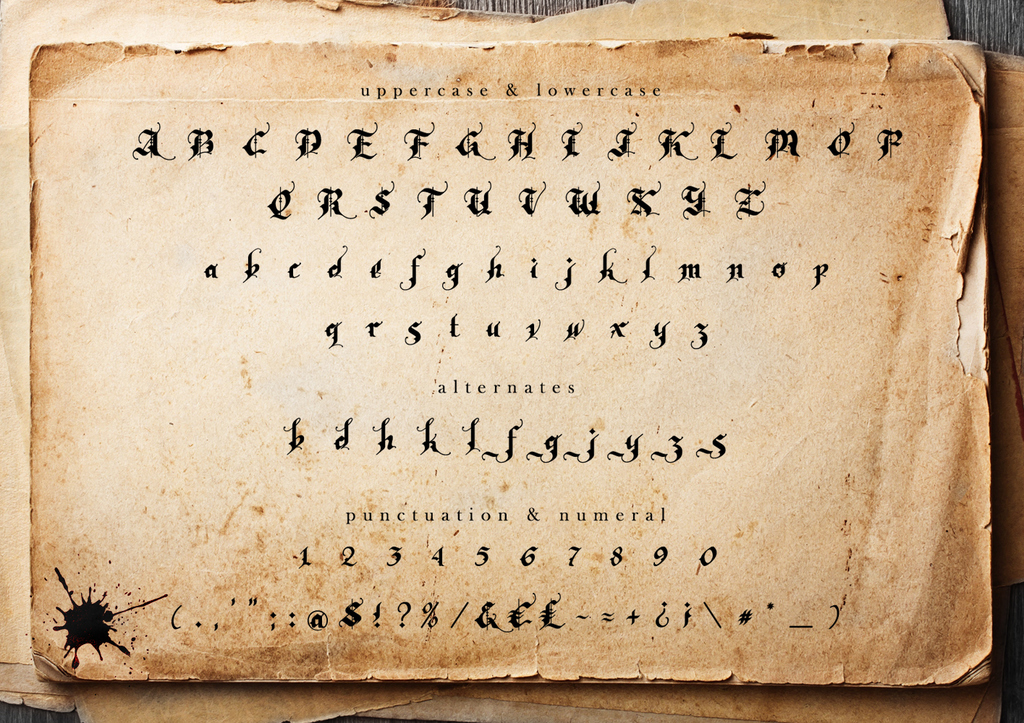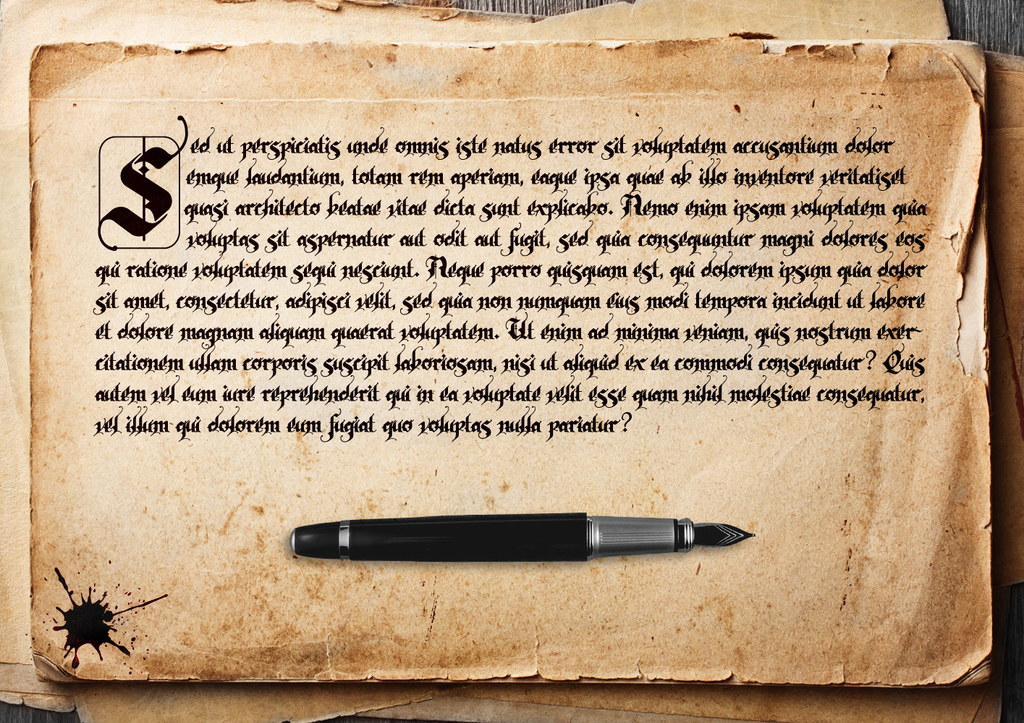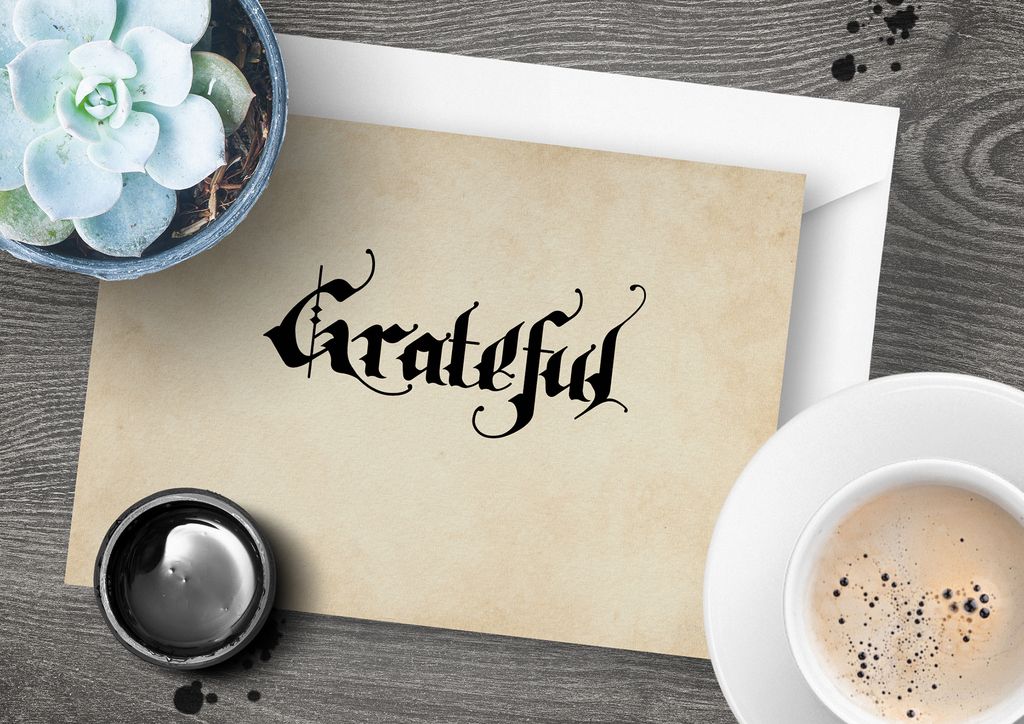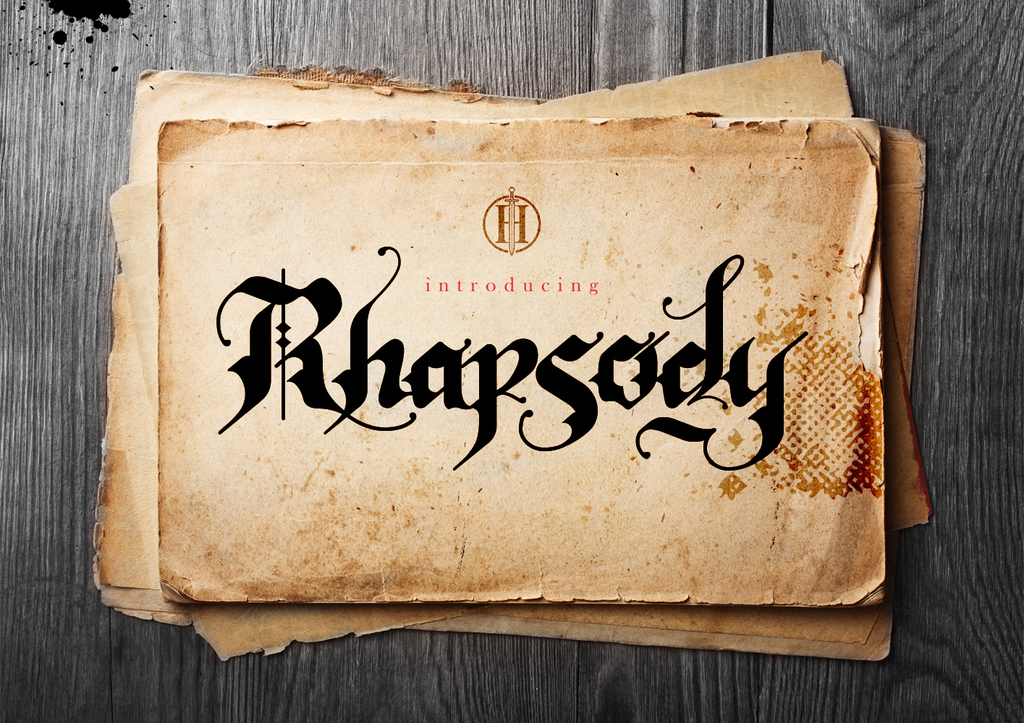
Rhapsody Black Letter
Rhapsody Black Letter Font
originally inspired by Black Letter typography. Combination of ornamental, decorative and from gothic era with a feel of unique and romance. This font is recommended for your vintage or classic designs.
Features: Uppercase, Lowercase, Alternate Characters, Numeric and Punctuation.